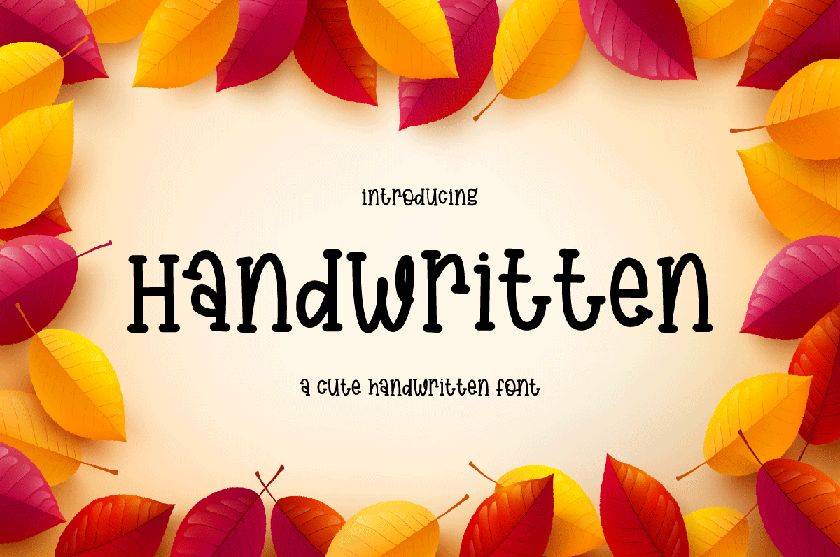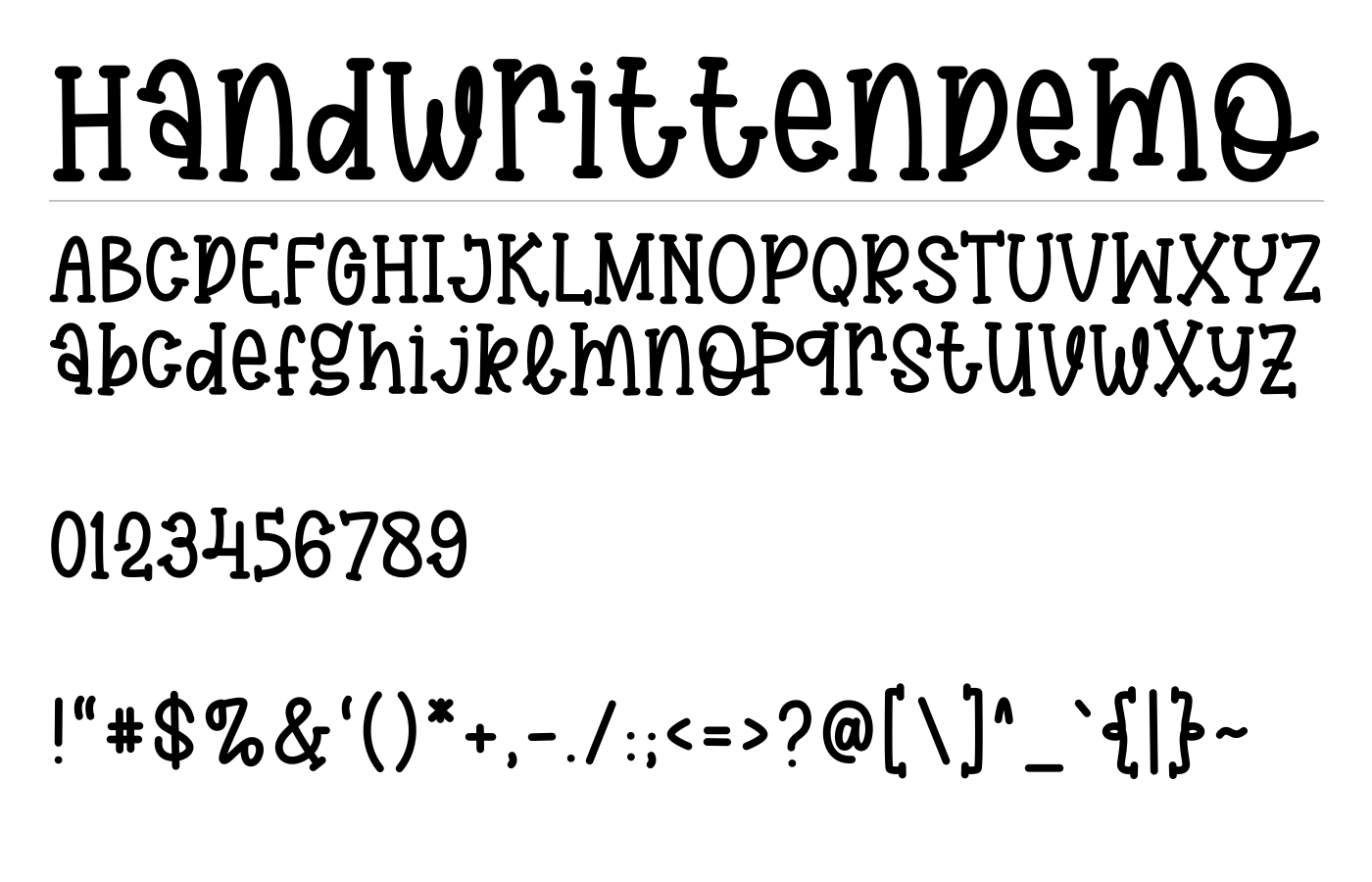
This playful handwritten font features irregular, slightly quirky letterforms with rounded terminals, giving it a friendly and informal character. Its consistent medium weight and open spacing make it easy to read, while the whimsical shapes and double-story details add a creative, approachable feel perfect for invitations, casual branding, or children's content. Its cheerful style works best in contexts where a lively, personal touch is desired.
Handwritten Font
About Handwritten Font
| Font family | Handwritten Font |
| Designer | letter art studio |